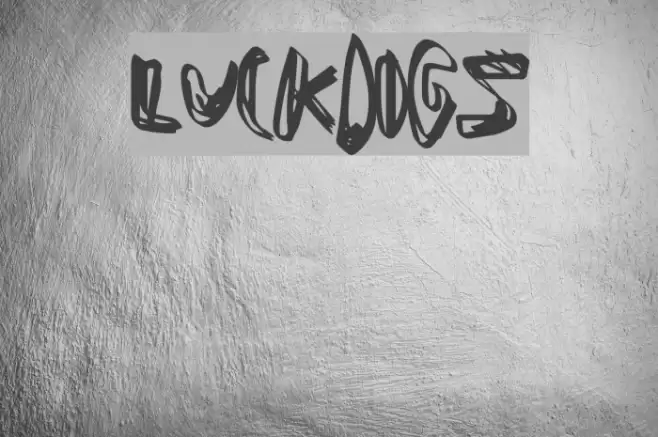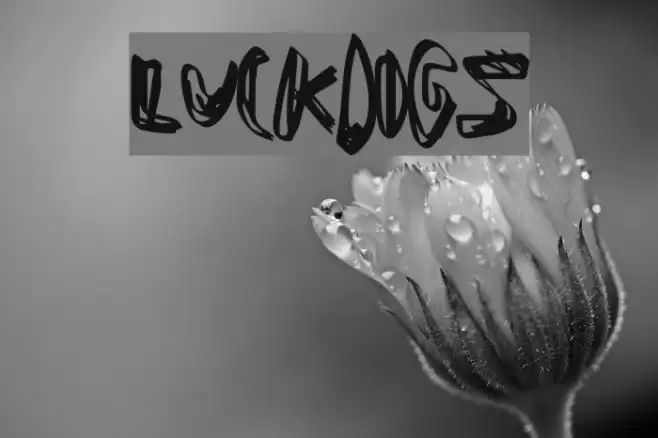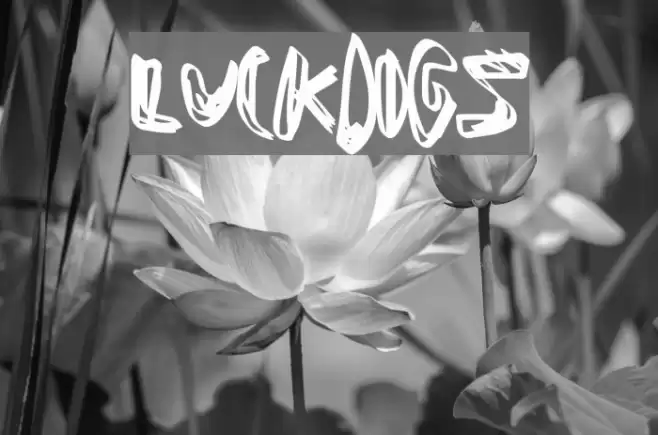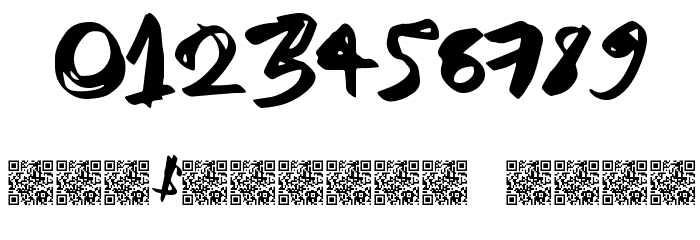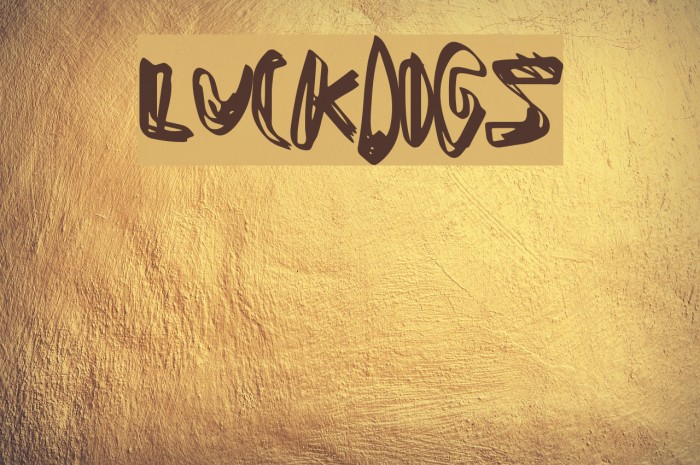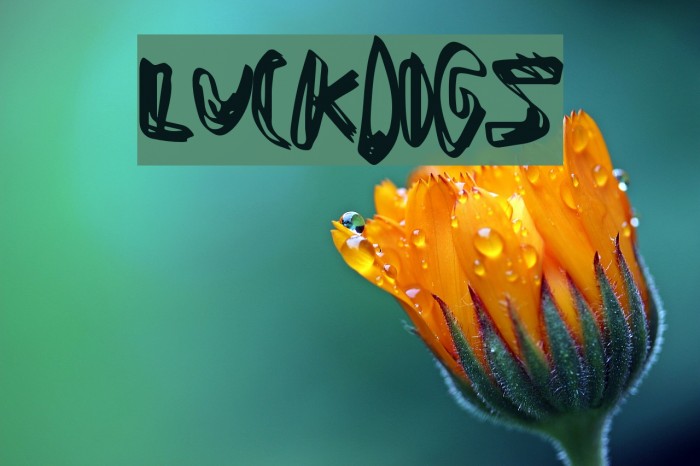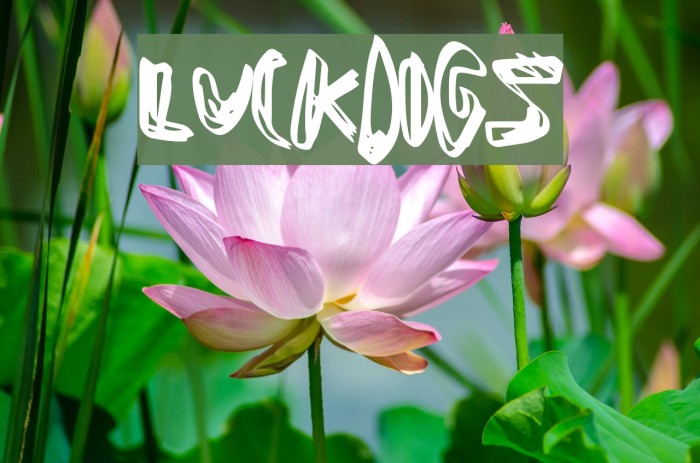
LuckDogs Font
LuckDogs Description
This font exhibits a bold and energetic style, characterized by its thick, brush-like strokes and dynamic, irregular shapes. The letters have a hand-drawn appearance, with a sense of movement and spontaneity. The uppercase and lowercase letters maintain a consistent style, with exaggerated curves and angles that create a lively and expressive look. The numbers and special characters follow the same design principles, ensuring a cohesive appearance across all glyphs. This font's unique style makes it stand out, offering a sense of creativity and artistic flair.
A bold, brush-style font with dynamic, hand-drawn strokes from Uncategorized fonts.
- Proposed Projects: Ideal for creative projects such as posters, album covers, graffiti art, and branding that requires a bold, artistic touch.
- Overall Style: Modern, Artistic